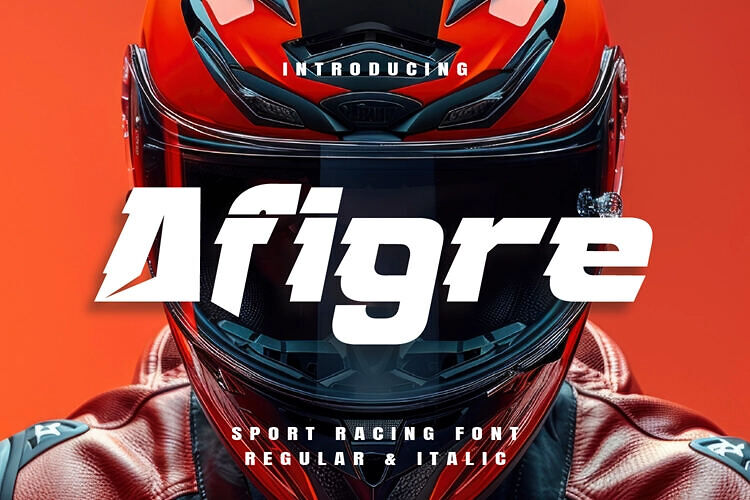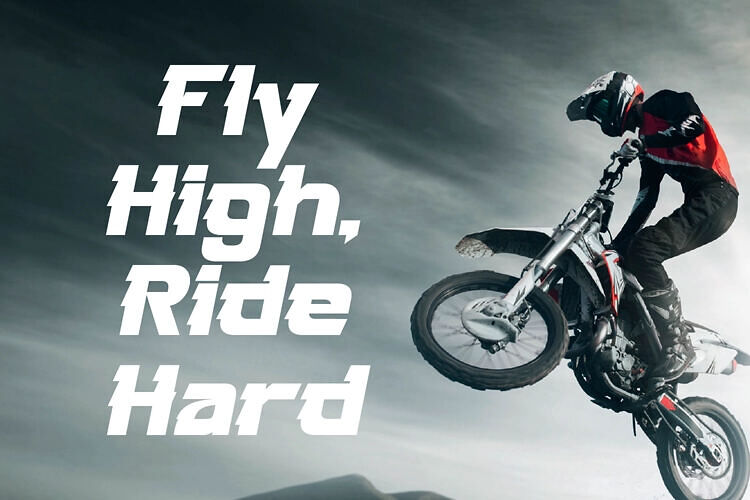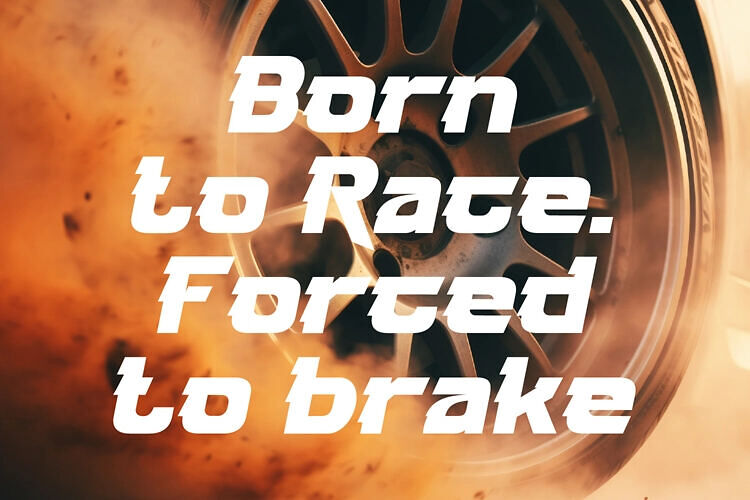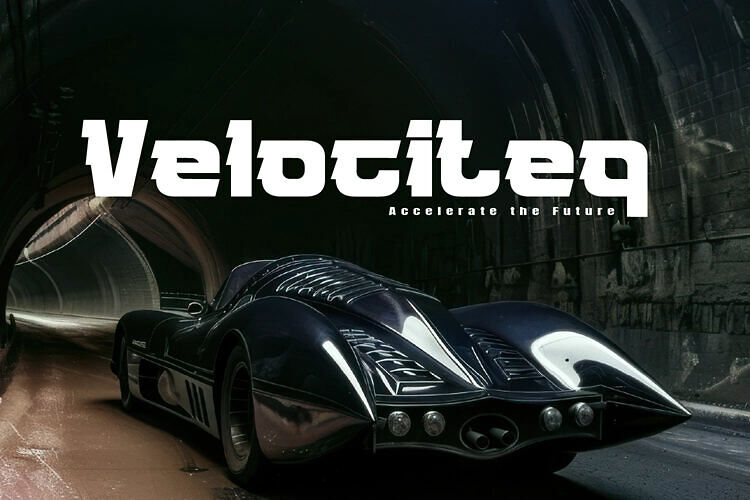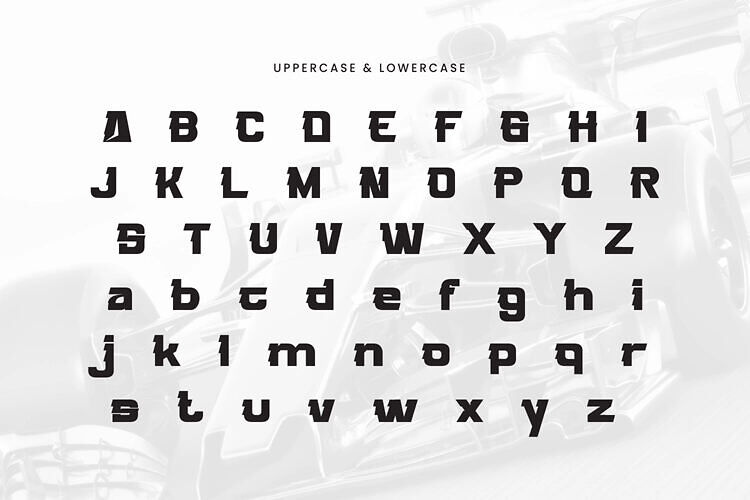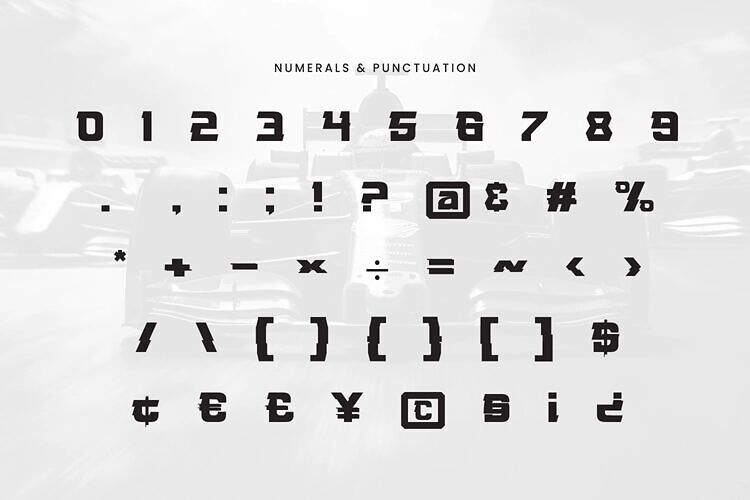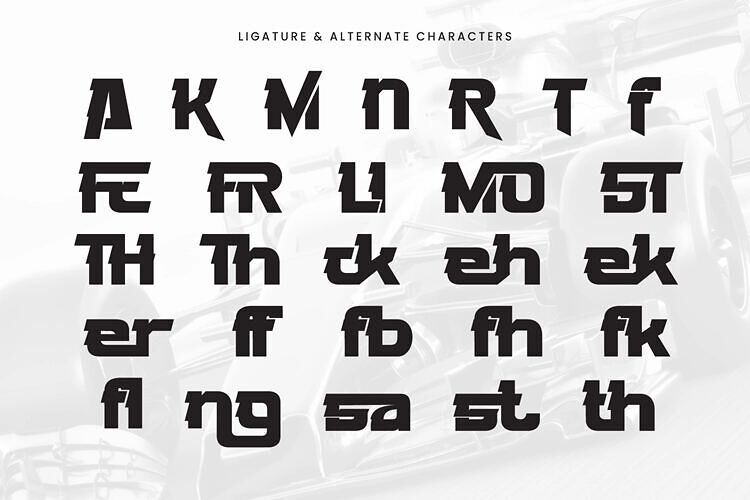
Afigre Racing Font
Afigre is a bold and aggressive display font crafted for speed, power, and precision. Inspired by the high-octane world of motorsports, Afigre combines sharp cuts, slanted angles, and aerodynamic forms to deliver a striking typographic presence.
This font is perfect for racing posters, automotive branding, esports graphics, apparel design, and any project that needs a fast and futuristic vibe.